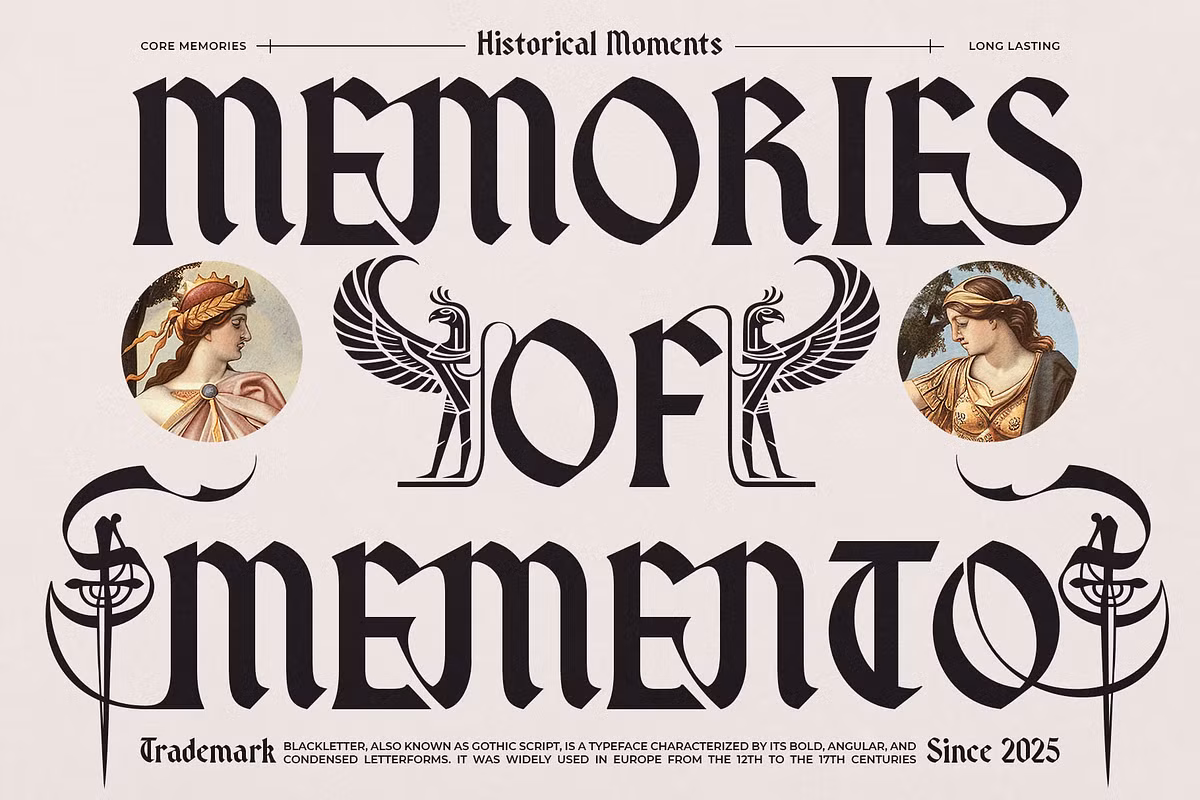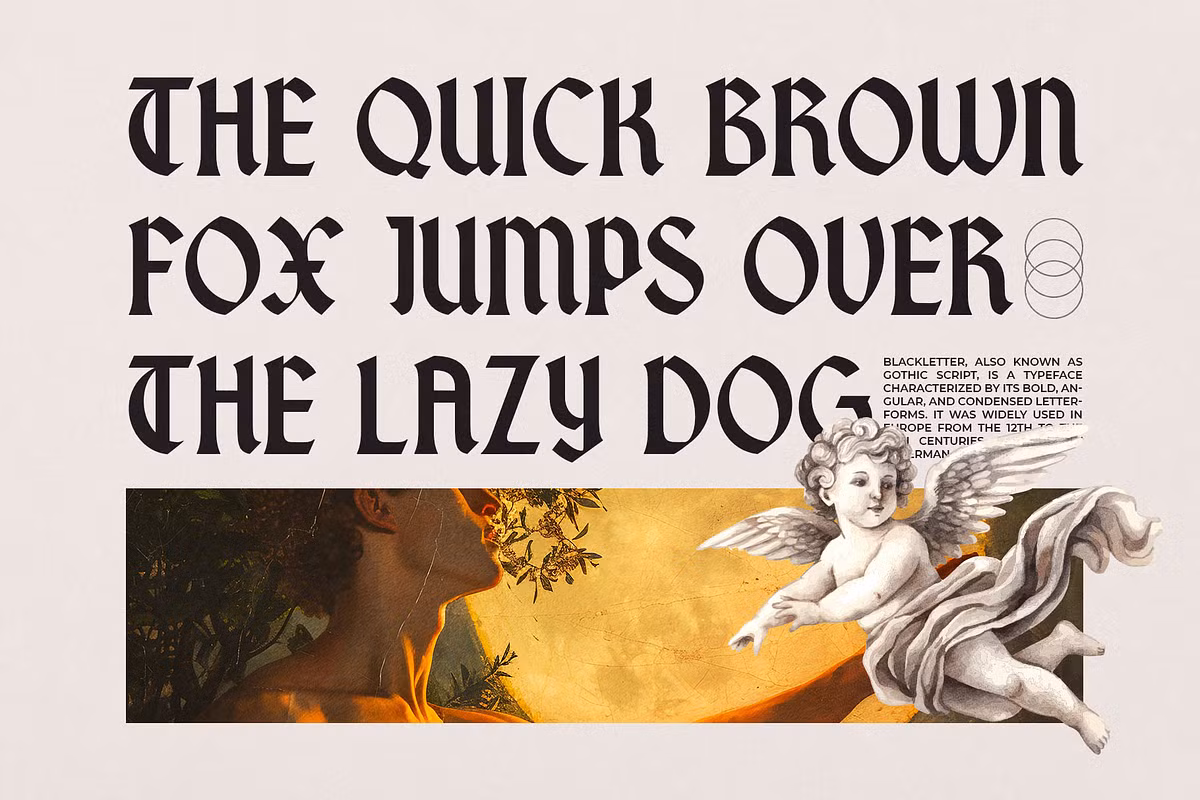
Dreamhour Typeface: Ornamental Gothic-Serif Fusion for Designers
Introduction to Dreamhour Typeface
Introducing the Dreamhour Typeface, a unique and richly ornamental display typeface that merges the expressive, rigid elegance of blackletter traditions with the clarity and balance of contemporary serif design. This typeface is crafted for modern mythmakers, designers, and creatives who are not afraid to make a bold statement. With its confident presence, Dreamhour is not just a font; it is a declaration of artistry and craftsmanship.
Design Style: The Fusion of Old and New
The idea behind Dreamhour Typeface is pretty cool – it’s all about mixing old and new styles. The letters are inspired by old medieval calligraphy, like Fraktur and Textura, but they’re updated to look modern. This mix of old and new creates a typeface that’s both elegant and flashy, which makes it great for all sorts of design projects. It’s like you get the best of both worlds – the classic feel of ancient aesthetics and the fresh look of modern design.
Subtle curves intertwine with sharp terminals, while swashes elegantly sweep across characters. The precise geometries present in Dreamhour evoke a sense of timeless luxury and sophistication. This ornate style is perfect for editorial design, high-fashion branding, fantasy universes, and ceremonial products, providing a narrative with every letter.
Character Sets: Extensive Glyphs and Variants
The Dreamhour Typeface really stands out with its huge collection of characters – we’re talking over 899 unique glyphs. This means it can handle all sorts of diacritics, symbols, punctuation, numerals, and languages. So, designers have the freedom to create intricate and functional typographic compositions that meet their needs. Whether it’s a complex layout or a simple design, the Dreamhour Typeface has got you covered.
Its versatility is a major plus, making it a great choice for designers who want to create something special. With this typeface, you can create beautiful and functional designs that work for a wide range of projects. Dreamhour also has four different style options that let users switch between various typography looks.
So, whether you like traditional capital letters or more fancy decorative options, Dreamhour gives you the flexibility to fit your design needs. It also includes special character combinations, called ligatures, and extra characters that make the typeface more interesting and give you more options for expressing yourself through typography, like standard and discretionary ligatures, fancy swash characters, and stylistic alternates that let you personalize your typography.
Ideal Use Cases for Dreamhour Typeface
The Dreamhour Typeface is really great for lots of different creative projects. Here are some examples of when it would be a good choice to use it:
- Fantasy & Mythological Book Covers: The ornate and mystical qualities of Dreamhour make it an excellent choice for book covers or movie titles centered around fantasy themes.
- Gothic Tattoo Designs: Its rich details and expressive forms are perfect for creating striking tattoo designs that resonate with gothic aesthetics.
- Ceremonial Certificates: Use Dreamhour for creating elegant and sophisticated certificate designs, lending a sense of gravitas and importance.
- Luxury Packaging: Dreamhour is ideal for luxury packaging and label designs, such as those for perfumes, whiskey, and cosmetics, where a high-end feel is essential.
- Fashion Editorials: This typeface excels in fashion editorials and haute couture branding, imparting an air of exclusivity and sophistication.
- Music Album Art: Whether for album art or posters, Dreamhour provides a dramatic flair that captures the essence of creative portfolios.
Pairing Suggestions for Dreamhour Typeface
While Dreamhour stands out on its own, pairing it with complementary fonts can enhance your designs even further. Here are some pairing suggestions:
- For Body Text: Pair Dreamhour with a clean sans-serif typeface like Helvetica Neue or Montserrat for a balanced contrast that maintains readability.
- For Subtitles: Use a contrasting serif typeface such as Georgia or Playfair Display to create visual interest while ensuring harmony within the design.
- For Modern Projects: Combine Dreamhour with a minimalist sans-serif like Arial for a contemporary aesthetic that highlights the ornamental nature of Dreamhour.
Whether you are crafting a fantasy book cover, designing luxury packaging, or creating impactful editorial layouts, Dreamhour is the perfect companion for those who seek to tell stories through typography. Embrace the richness, texture, and regal presence of Dreamhour and let your designs resonate with confidence and allure.